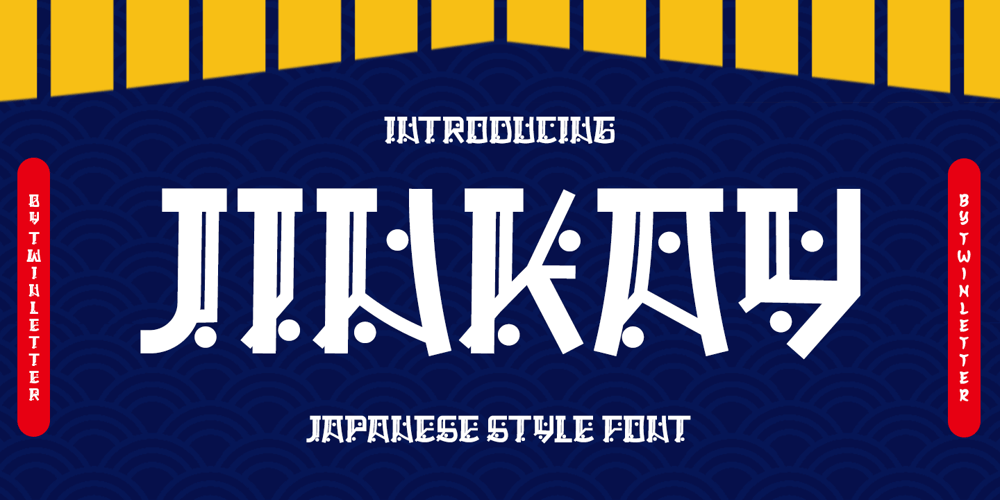
Jinkay Faux Font Family was designed by Rozikan and published by Twinletter. Jinkay Faux contains 1 styles and family package options. We’ve created Jinkay, a display typeface with a Japanese style that’s similar to original.Don’t be afraid to use this font in all of your special projects right now; imagine how beautiful and appealing your design will be; your project will instantly captivate all of your audience at first glance; they will easily remember the appearance of your project if you use this font, because it will be unique, different, and stand out from the crowd.Logotypes, food banners, branding, brochure, posters, movie titles, book titles, quotes, and more may all benefit from this font.Of course, using this font in your various design projects will make them excellent and outstanding; many viewers are drawn to the striking and unusual graphic display.Start utilizing this typeface in your projects to make them stand out.